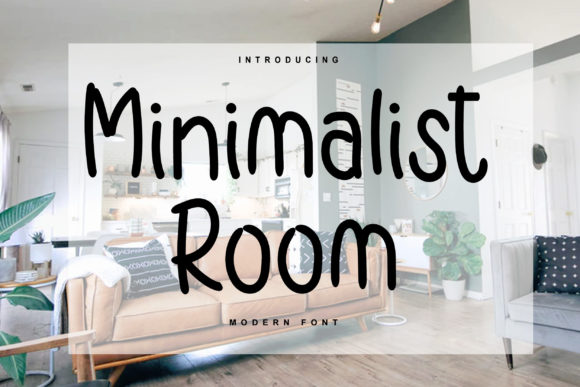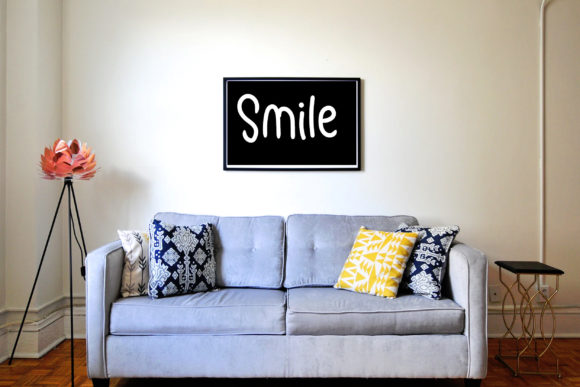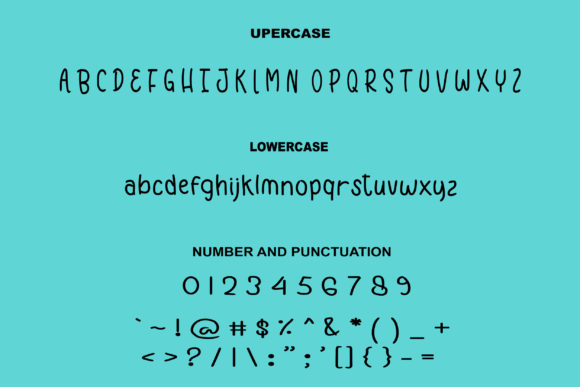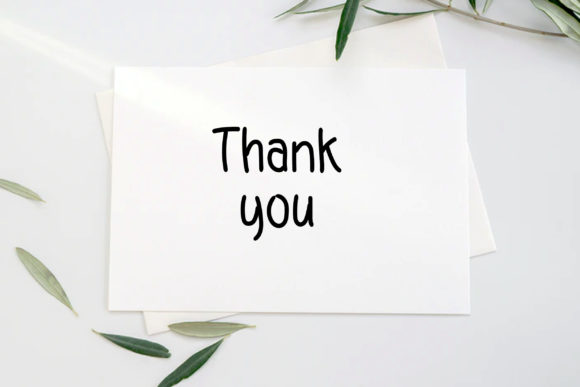
About Minimalist Room Font
Minimalist Room is a simple and natural handwritten font. It will elevate a wide range of crafting ideas, from cards, to branding, labels and much more.